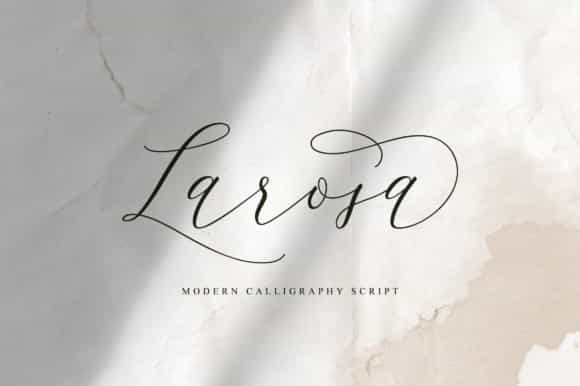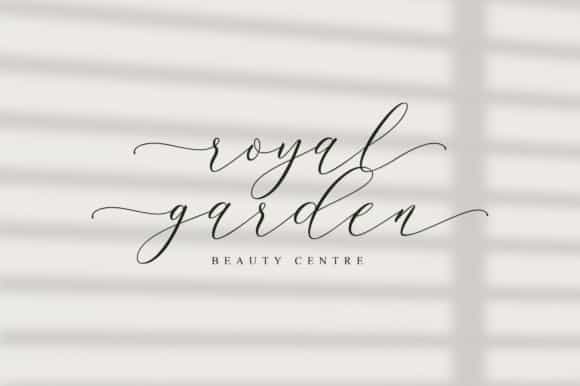
Larosa Font is amazing and charming, but at the same time it is very contemporary. This adaptable script font can be applied to various areas such as greeting cards and headlines, thus making your next craft very romantic.